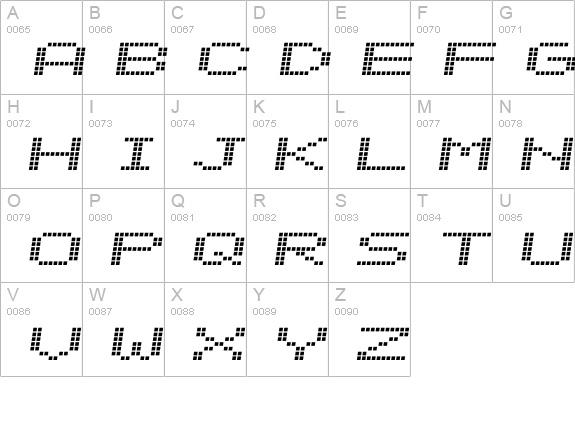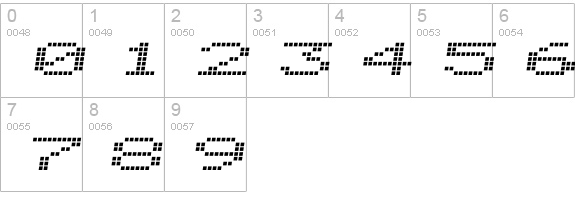
Alpine 7558S Font Details
The Alpine 7558S font is a stylish and versatile typeface that exudes elegance and sophistication. With its clean lines and modern design, this font is perfect for a wide range of design projects, from branding to editorial design. The sleek and contemporary look of Alpine 7558S makes it a popular choice among designers looking to make a statement. What's even better is that Alpine 7558S is available for free download at FontsMarket.com. This means you can easily access and use this stunning font in your projects without any cost. Whether you're a professional designer or a hobbyist, Alpine 7558S is a great addition to your font collection. Don't miss out on the opportunity to enhance your designs with this beautiful and free font!